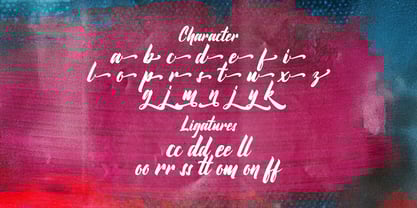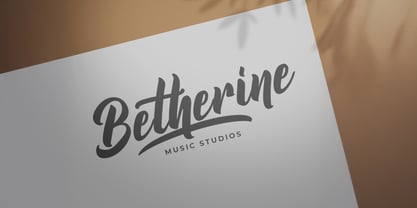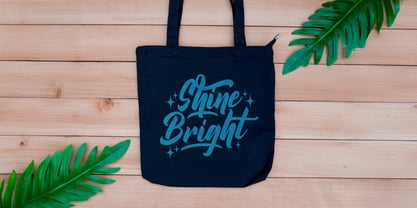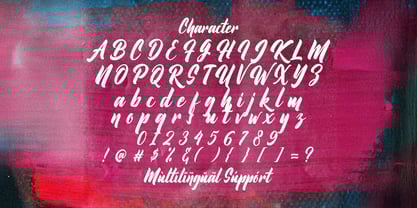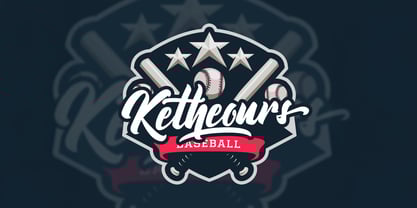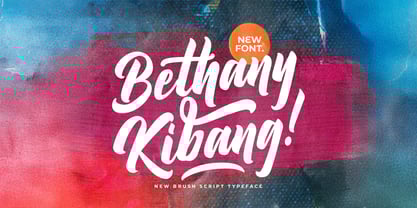
Bethany Kibang
by Stringlabs Creative Studio
The Bethany Kibang Font Family was designed by Virgiawan Listanto and published by Stringlabs Creative Studio. Bethany Kibang contains 1 styles. More about this family
Bethany Kibang is a bold script font with striking curves and a modern, energetic flow. Designed to make a strong impression, this font blends vintage charm with contemporary confidence perfect for standout logos, eye catching headlines, and expressive branding. Whether you're crafting apparel designs, posters, or product labels, Bethany Kibang adds a fearless, stylish attitude to your work.
Designers: Virgiawan Listanto
Foundry: Stringlabs Creative Studio